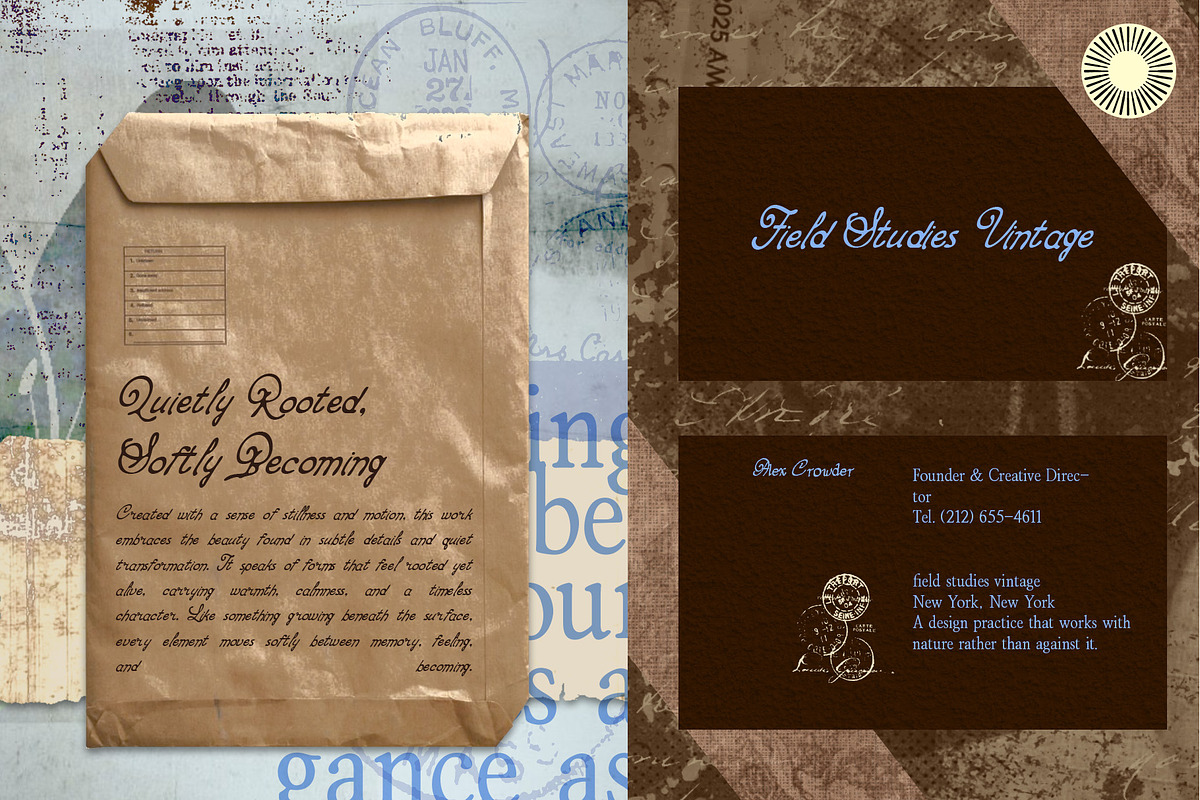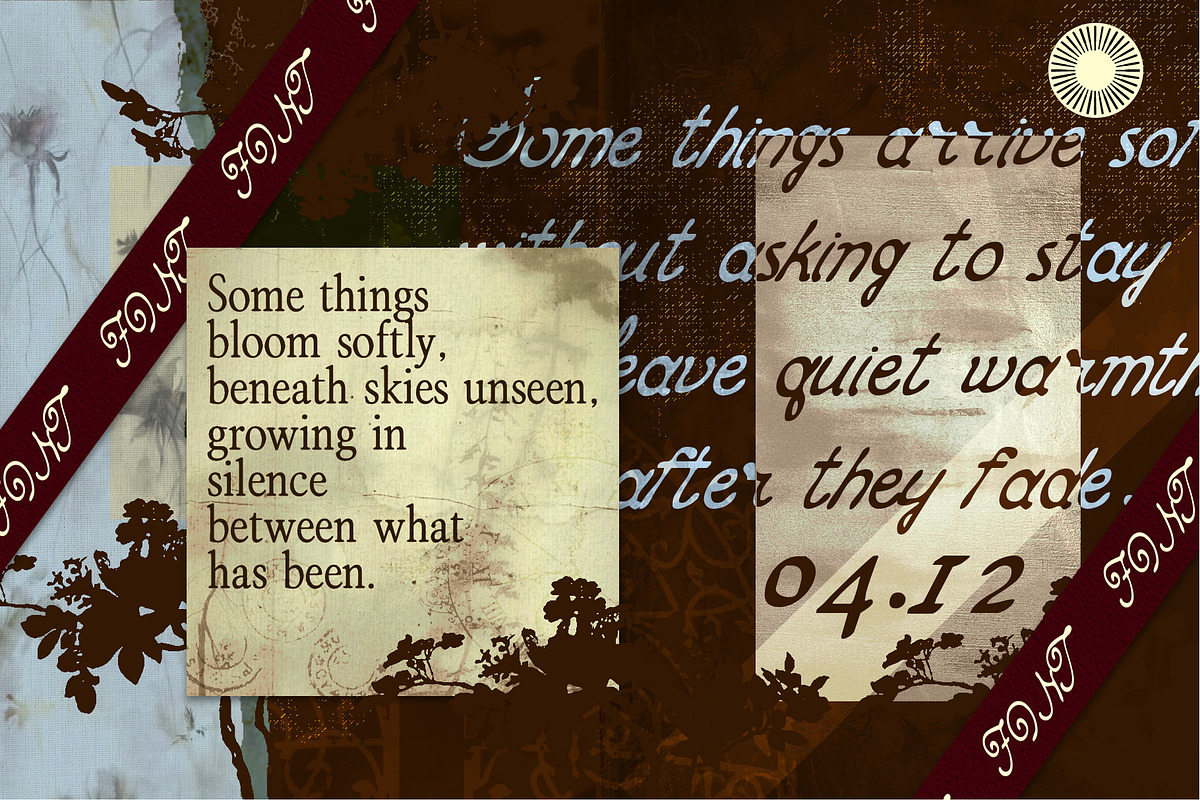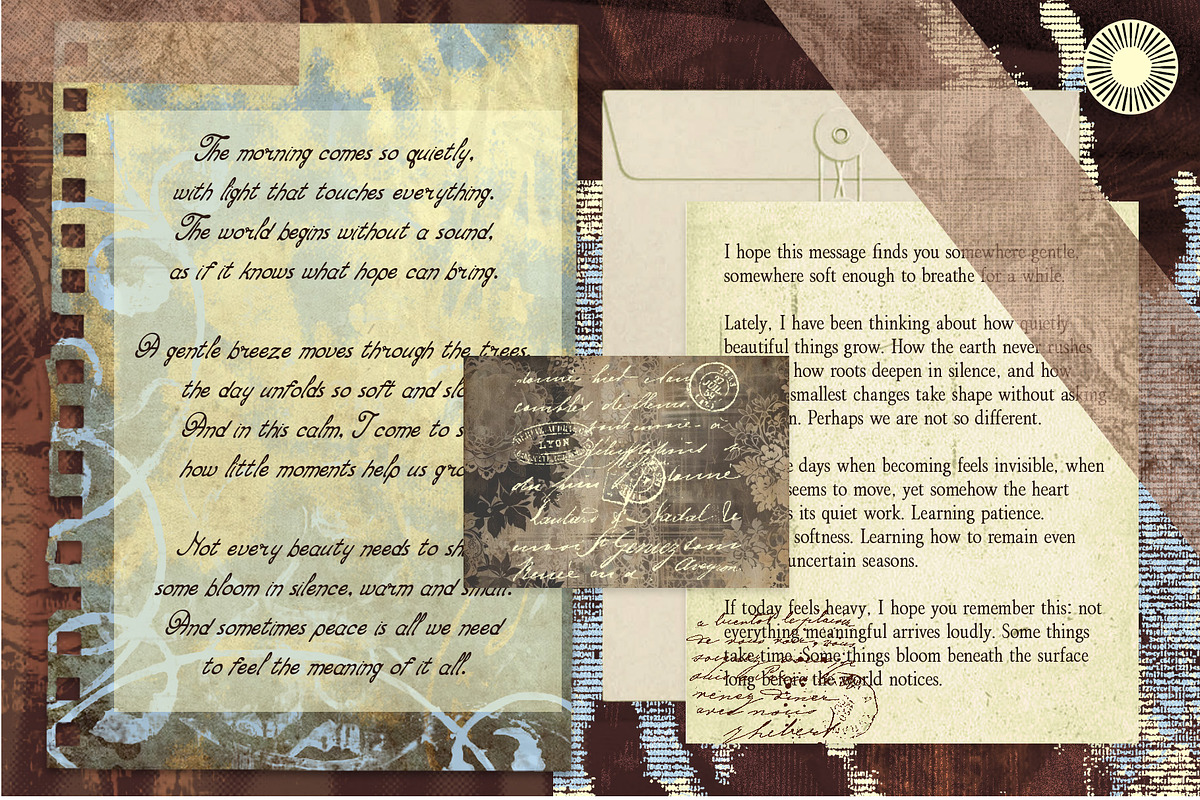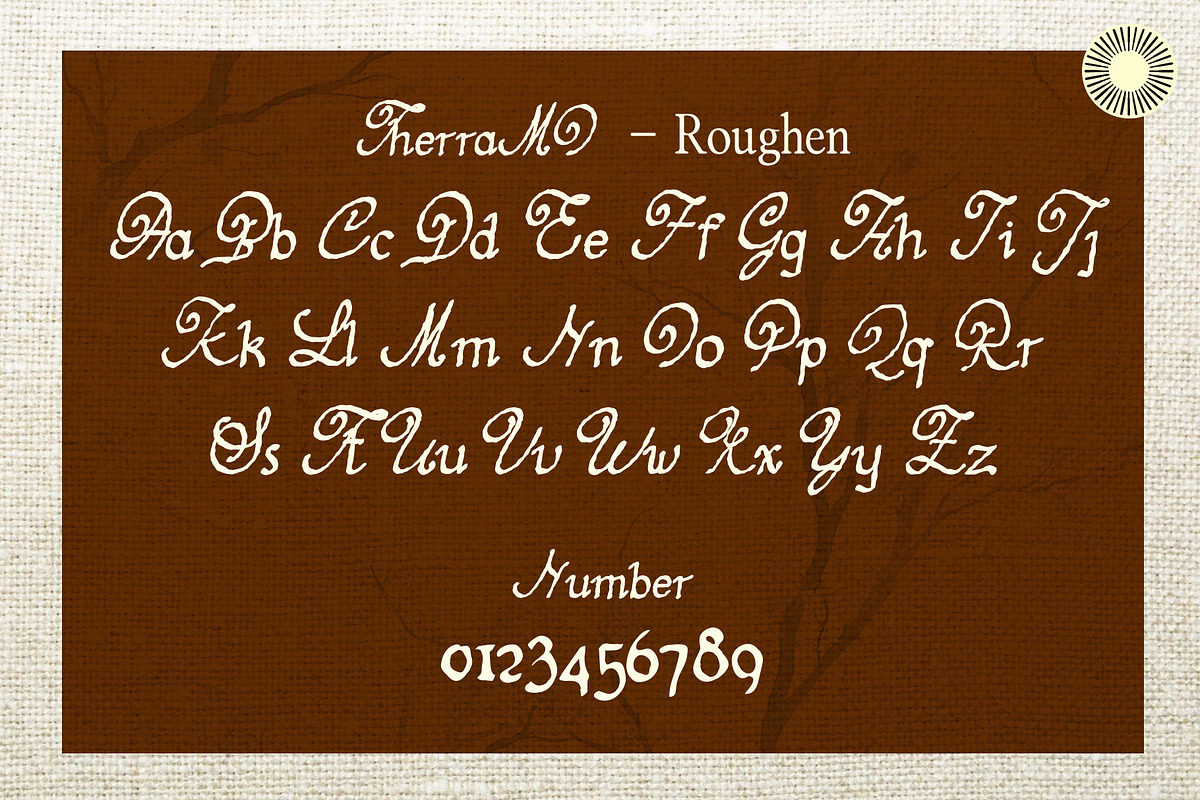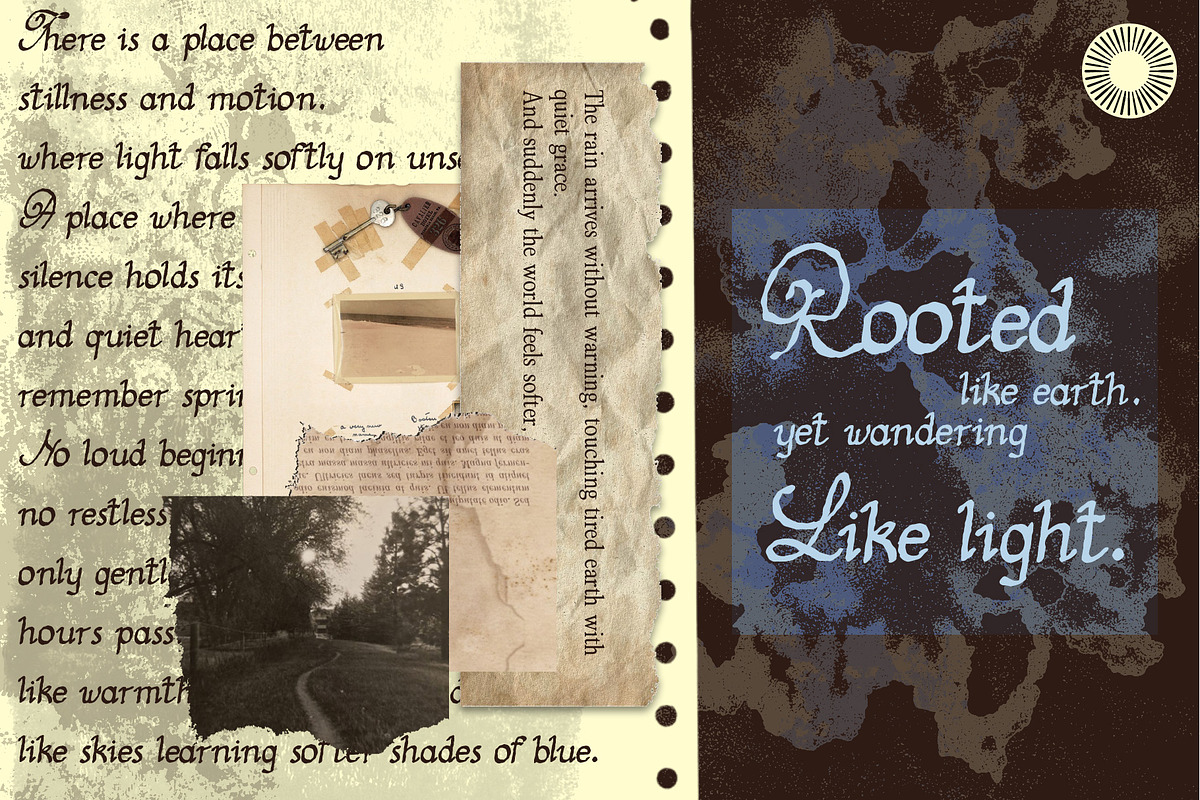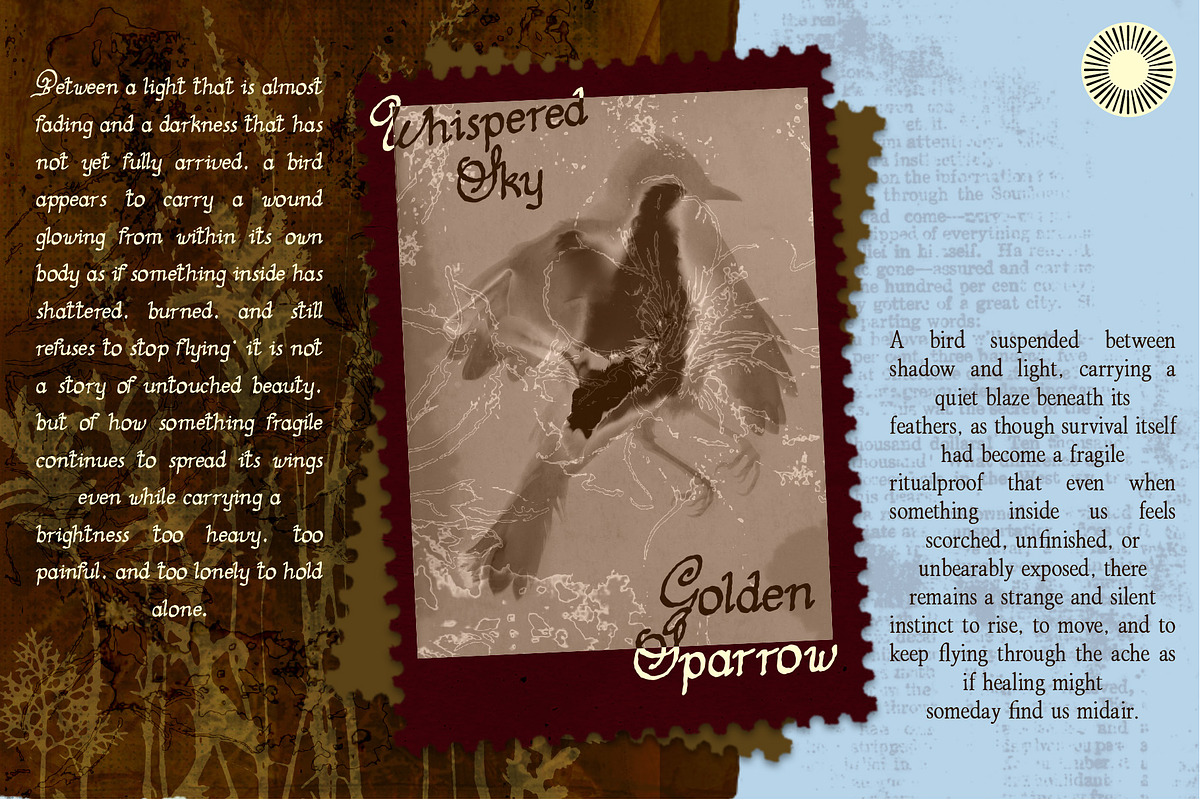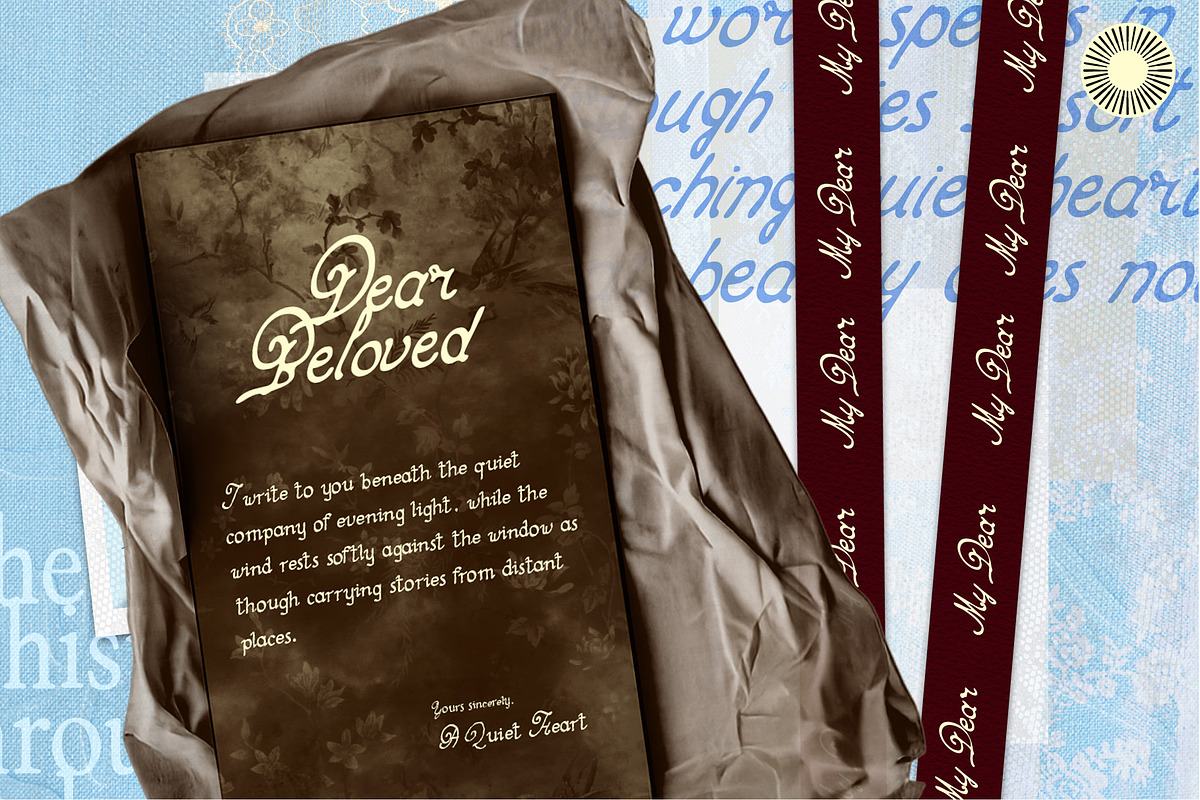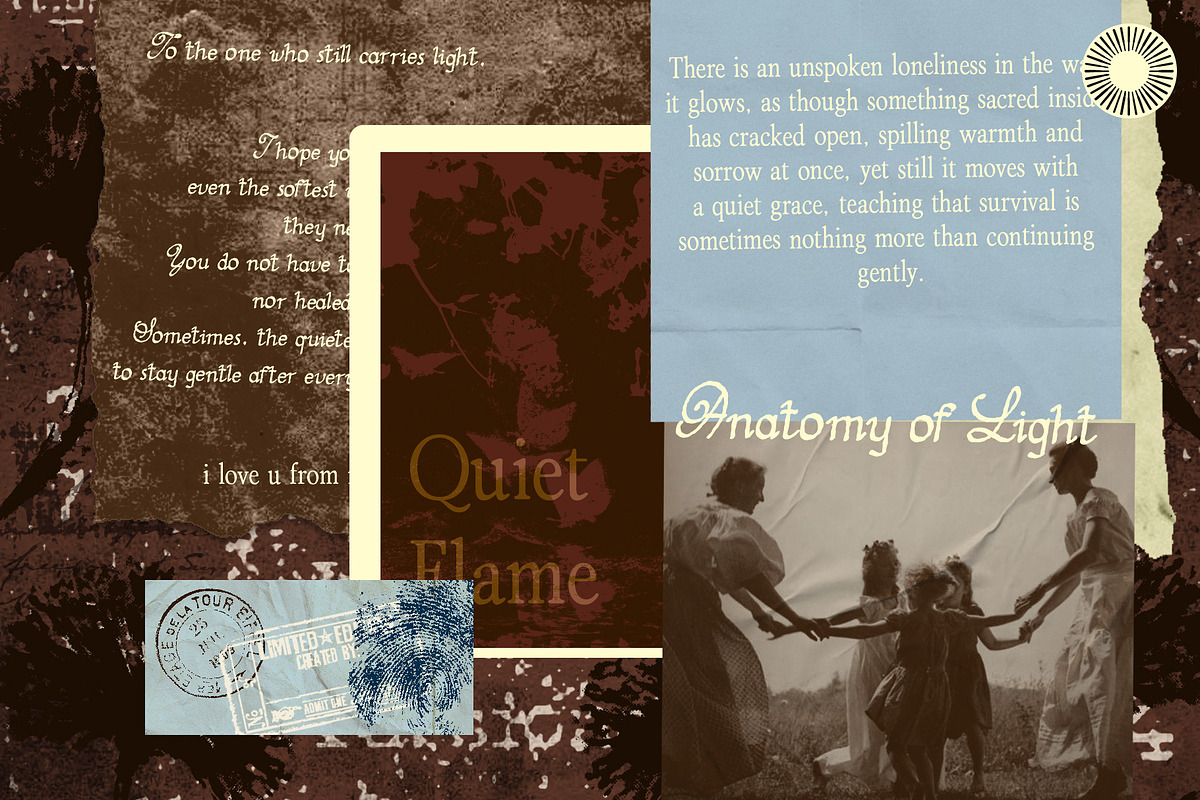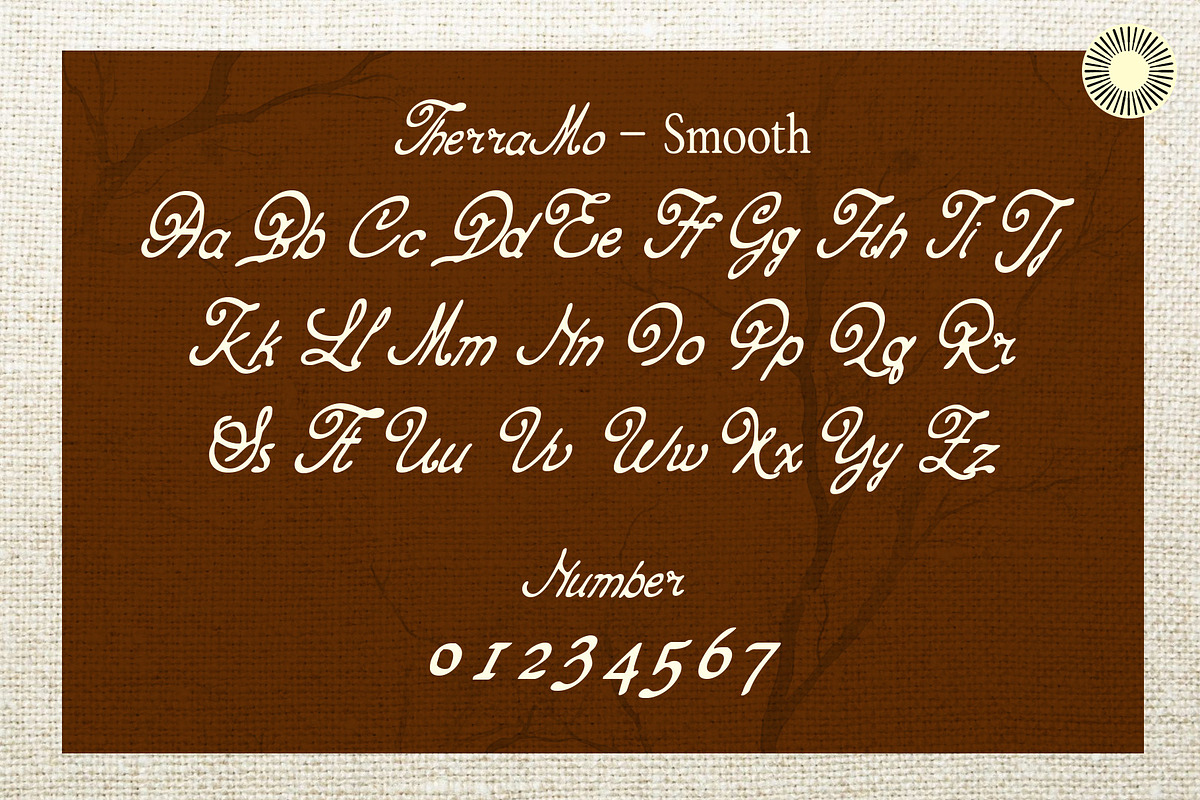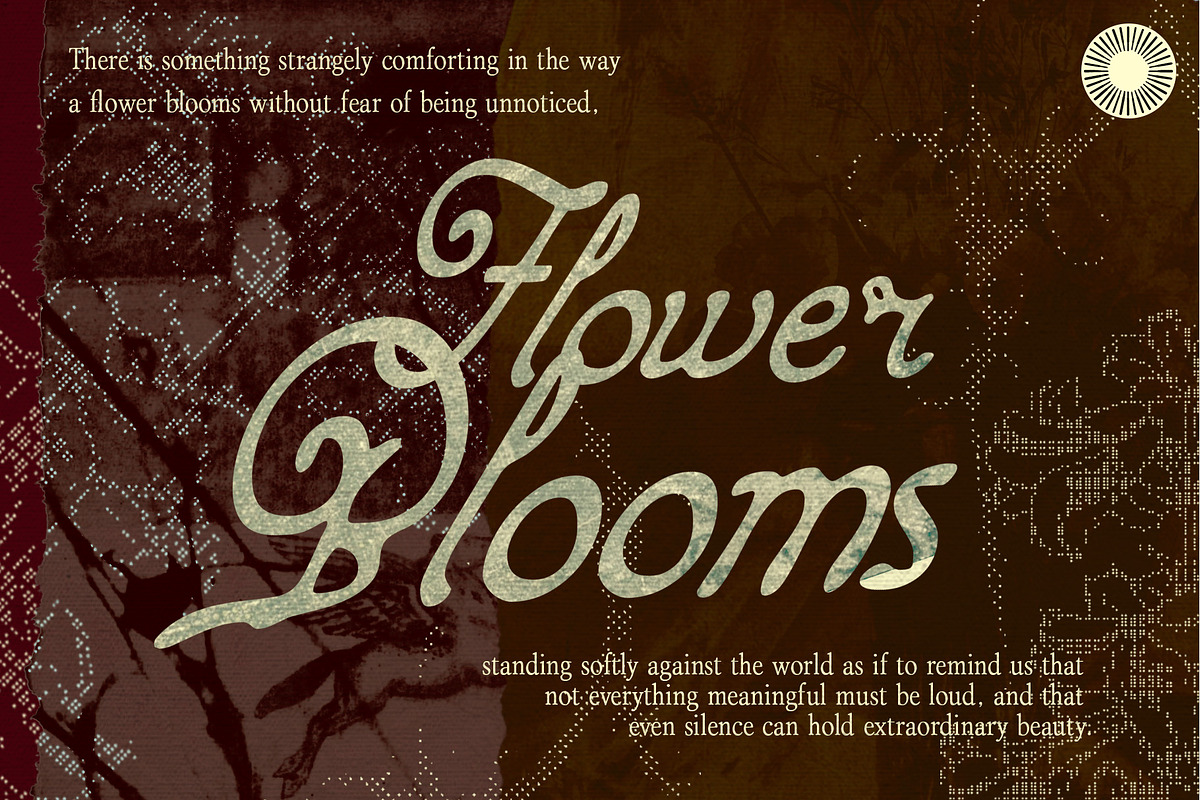
Therramo Organic Vintage Handwritten
Therramo – Organic Vintage Handwritten Script Font
Therramo is an organic handwritten script font inspired by forgotten gardens, handwritten letters, muted light, and quiet moments of romance.
With its naturally flowing strokes, imperfect letterforms, expressive proportions, and distinctive decorative swashes, Therramo brings a warm handmade feeling to your typography. Its slightly irregular character keeps it from feeling overly polished, giving your designs a more personal and authentic touch.
Therramo is designed for creatives looking for a handwritten font with vintage charm, organic warmth, and understated romance. It works beautifully as a display typeface for projects where the lettering needs to feel expressive without becoming overly decorative.
Best For:
Branding
Boutique Branding
Fashion Branding
Beauty Branding
Album Artwork
Editorial Design
Posters
Café & Restaurant Branding
Stationery
Greeting Cards
Lifestyle Projects
Creative Advertising